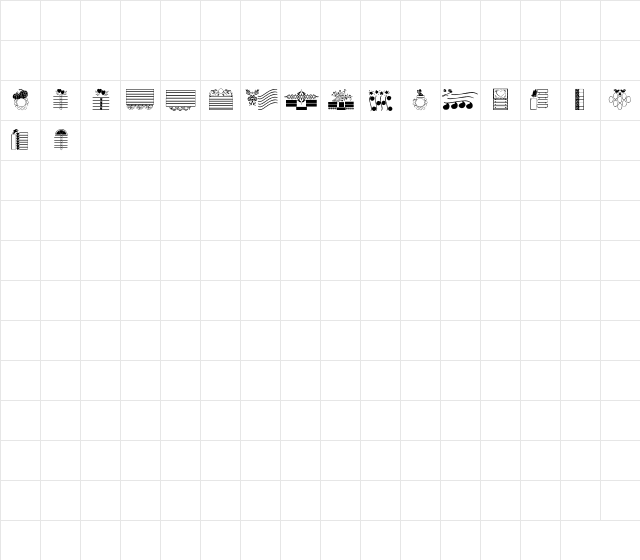
LSiface Regular
Foundry: High-Logic
Designer: High-Logic - Erwin Denissen
Design Context for LSiface
LSiface is a composed and adaptable typeface that performs quietly and consistently across a wide range of design contexts.